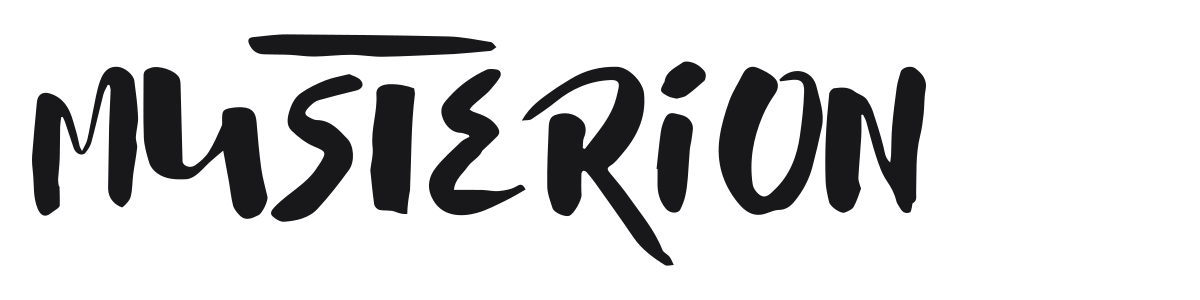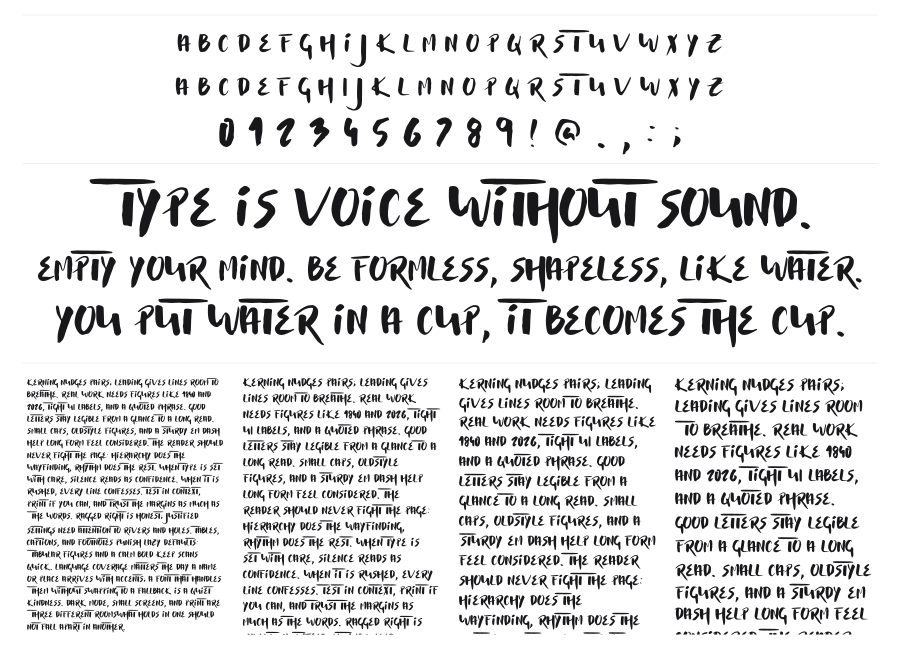
Musterion
Musterion is a bold brush script that looks like it was thrown down with a wide marker in a single confident pass. The rough, ink-loaded strokes and spontaneous letter connections give it an urban, kinetic energy. It punches hard at headline sizes and works naturally for music, streetwear, or any brand that needs attitude.